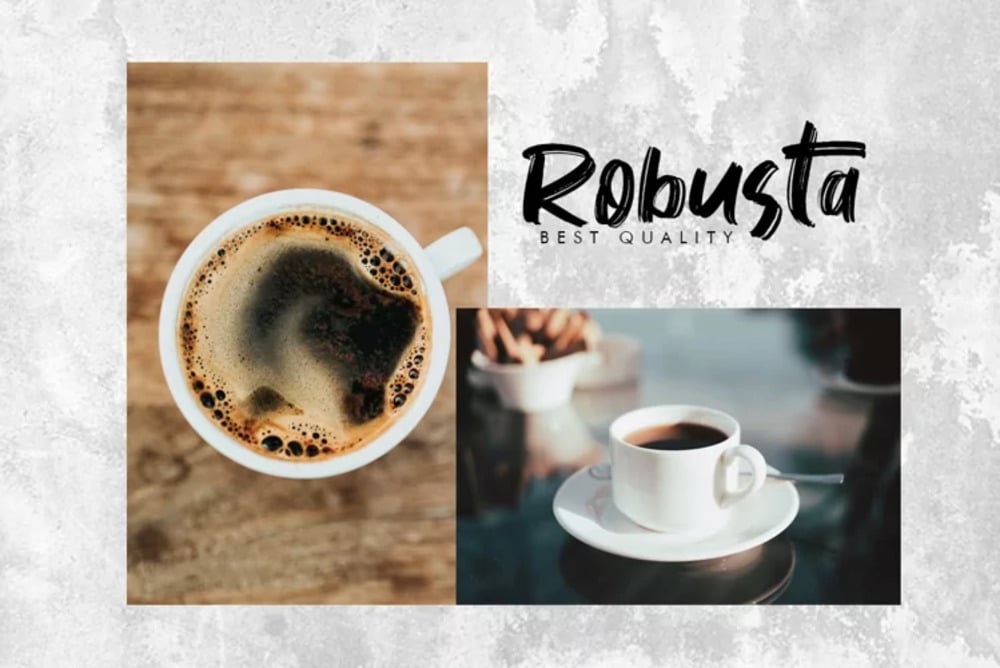
Vontens Font
Vontens is a modern and clean sans-serif font family with a geometric structure and a friendly, approachable feel. Its versatile design makes it suitable for a wide range of applications, from branding and corporate identity to web design and editorial projects. Vontens offers excellent readability and a contemporary aesthetic, making it a reliable choice for projects needing a clear and professional typographic voice. It conveys a sense of efficiency and modernity.